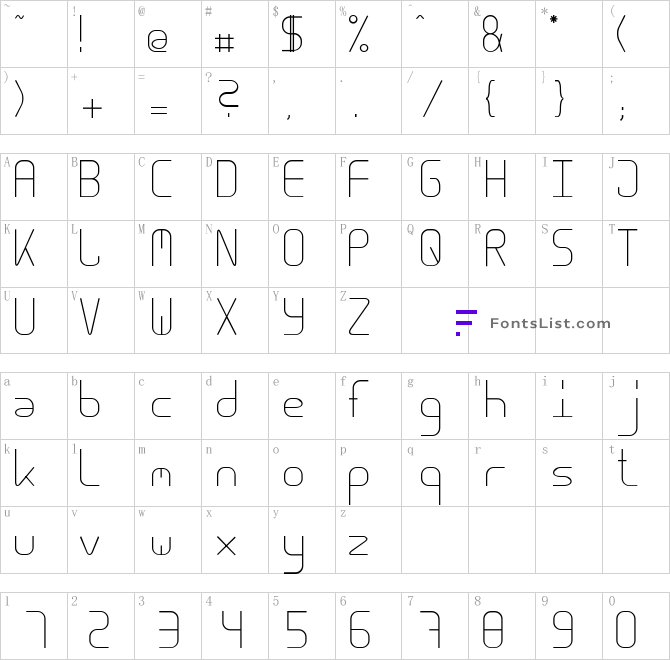
- Font Name:Across The Stars
Across-The-Stars.ttf is a very beautiful artistic font, Across-The-Stars.ttf is widely used in the design and printing of various books and pictures,Across-The-Stars.ttf has a strong visual impact,Across-The-Stars.ttf is a commonly used font in newspapers, magazines and books, and is used in posters, e-commerce Poster design, store design, logo design, font design and other fields.Across-The-Stars.